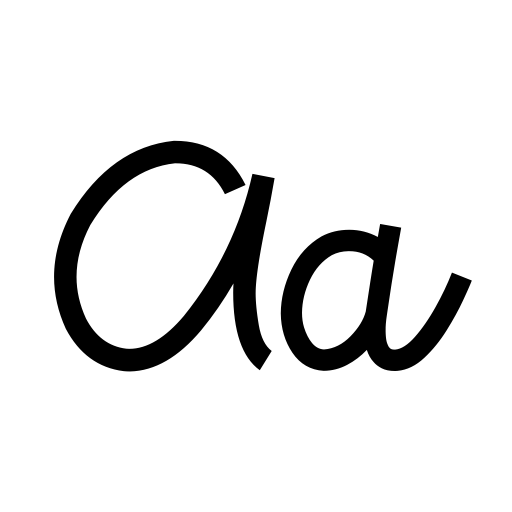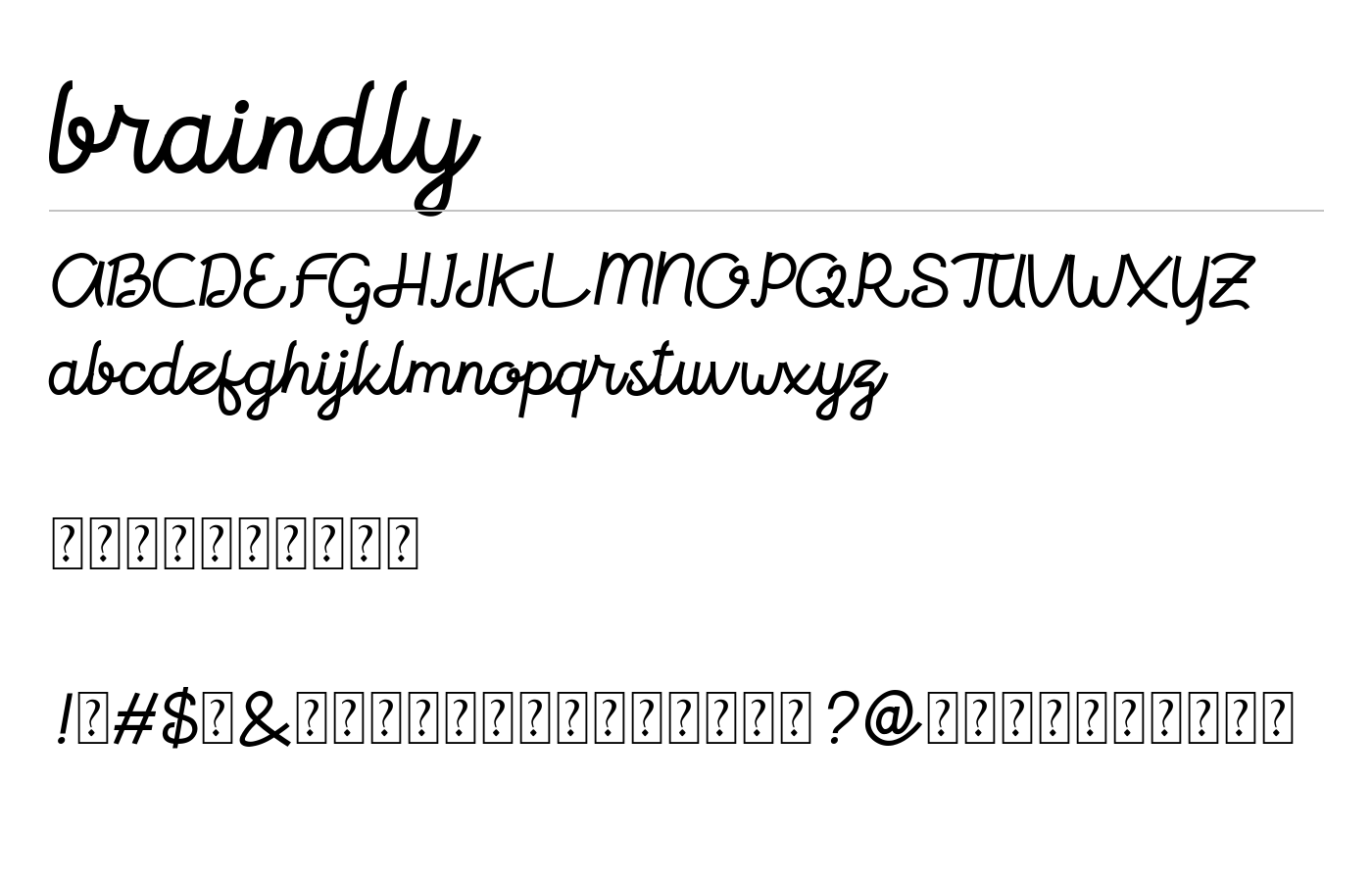
Braindly is a playful and elegant script font with smooth, connected strokes and a light, airy feel. Its rounded letterforms and flowing curves give it a friendly, casual personality, making it ideal for creative branding, invitations, and personal projects that seek a warm, approachable touch. This font works best in headline or display settings where its unique charm can shine.
braindly Font